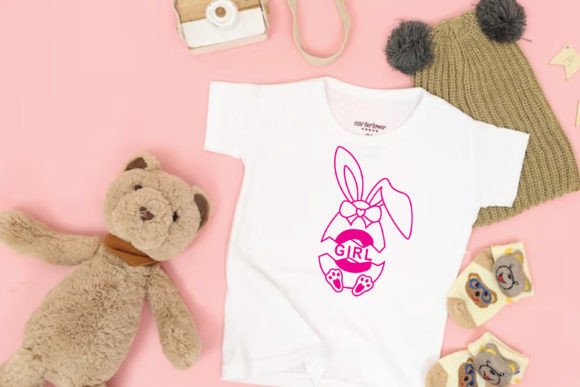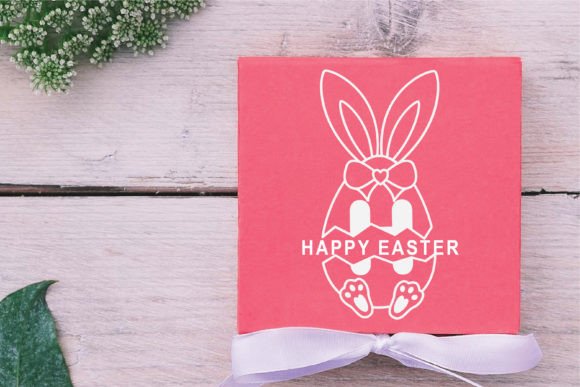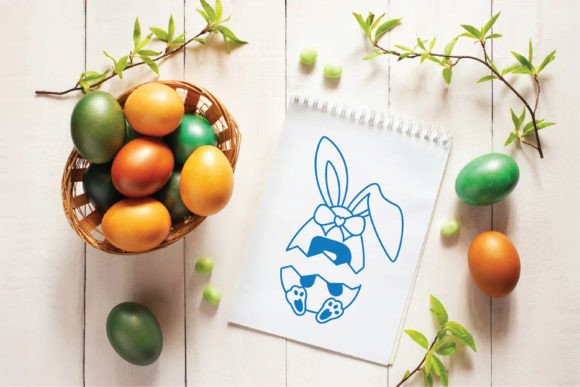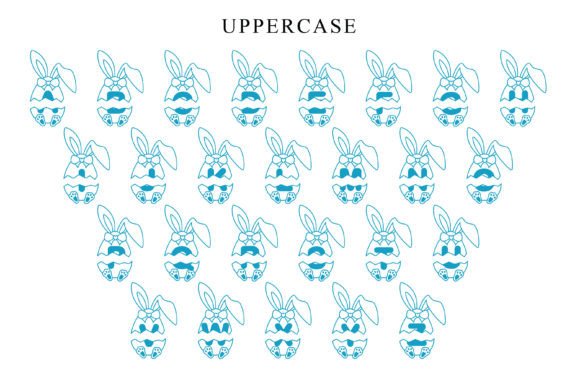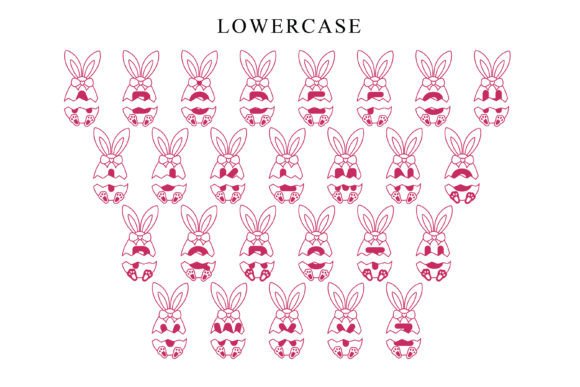
Introduction to Easter Rabbit Egg Font
Easter Rabbit Egg is a cute and quirky decorative font.
It will add an incredibly joyful touch to your designs Fall in love with its playful style and use it to create beautiful stationery art, eye-catching social media posts, and much more.